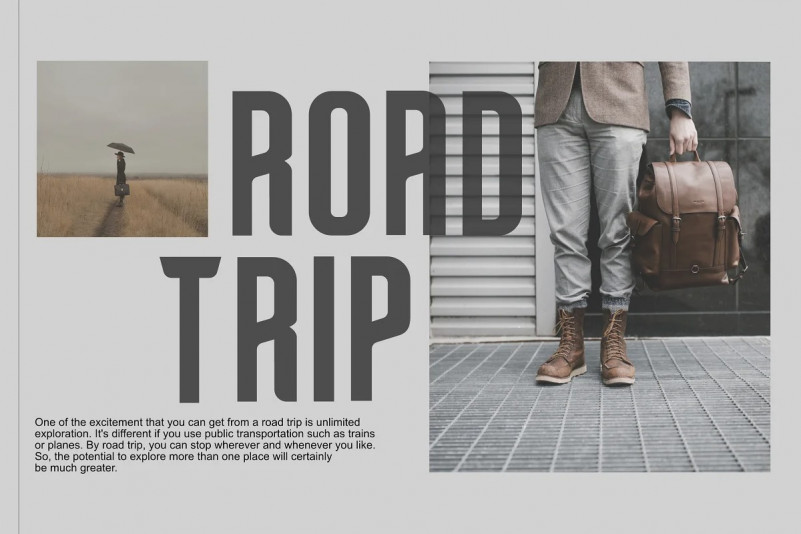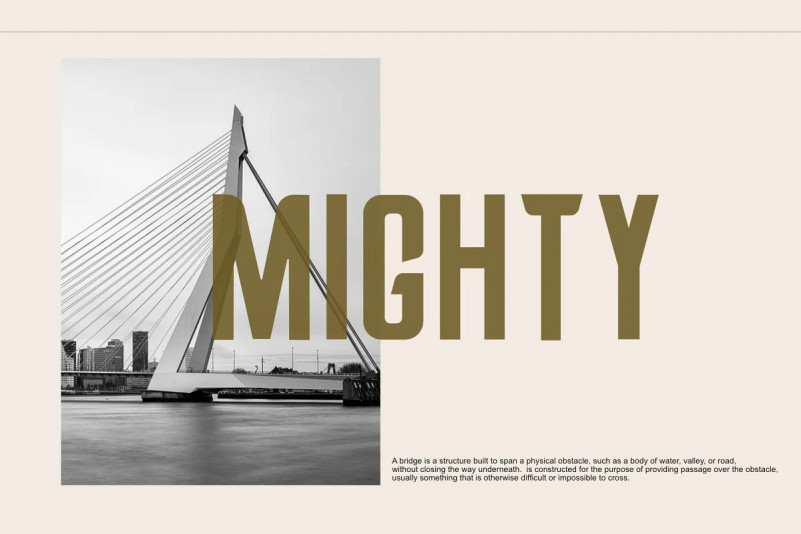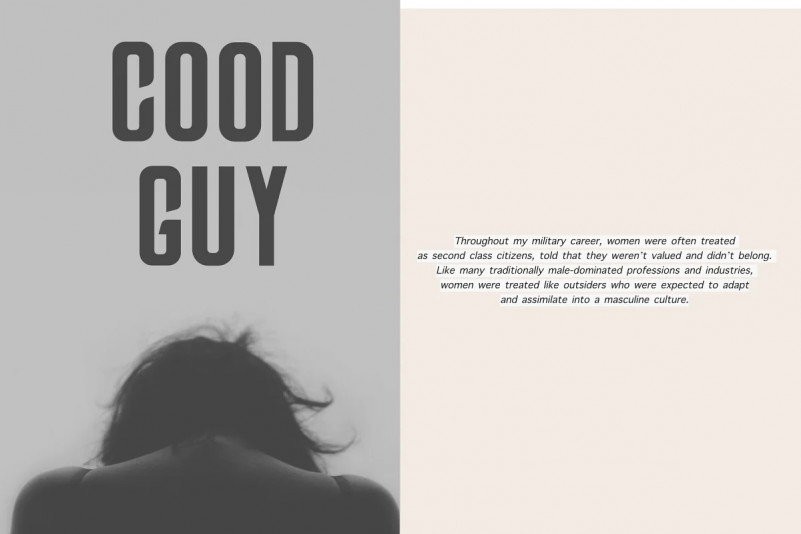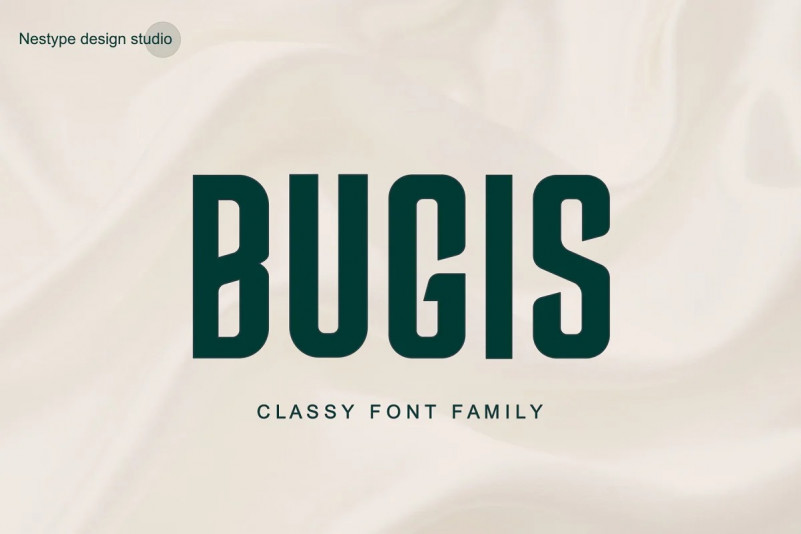
Bugis Sans Serif Font
This is a san display font created by Nestype with relaxed, clean, and charming characteristics. This is a very versatile font that works well in large and small sizes. Perfect for logo design projects, editorials, product packaging, Clothing Branding, magazine headlines, or just as a stylish text overlay to any background image.